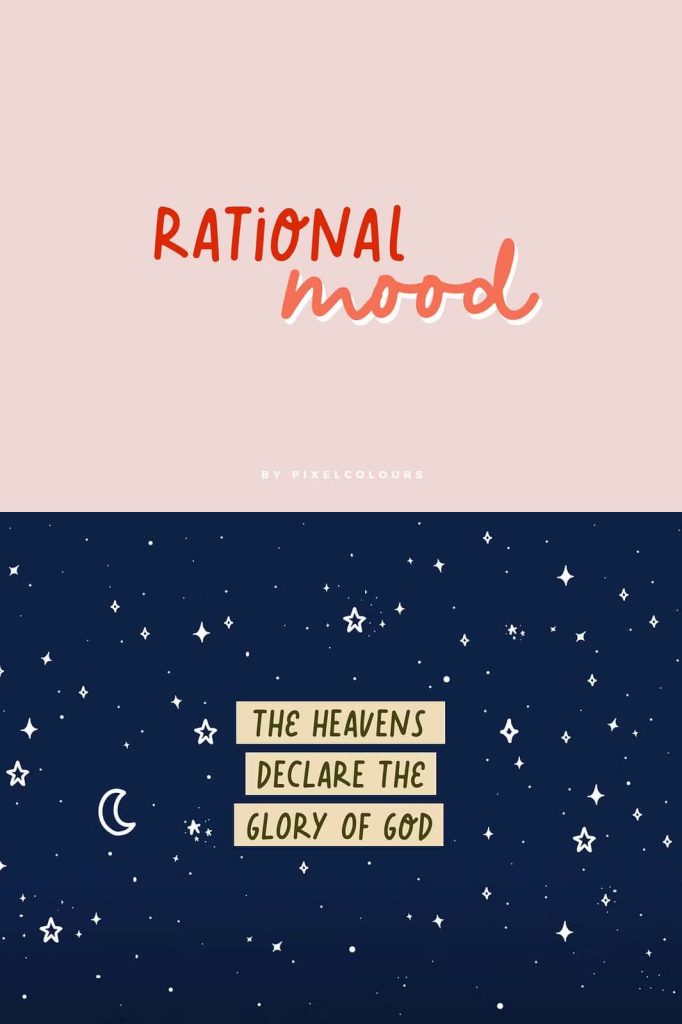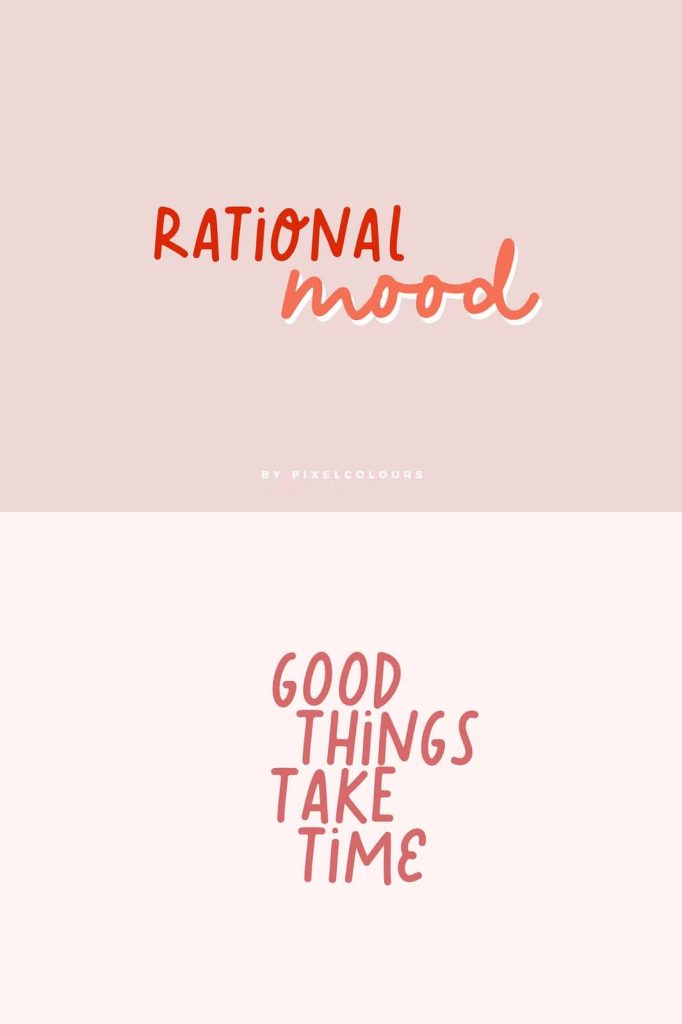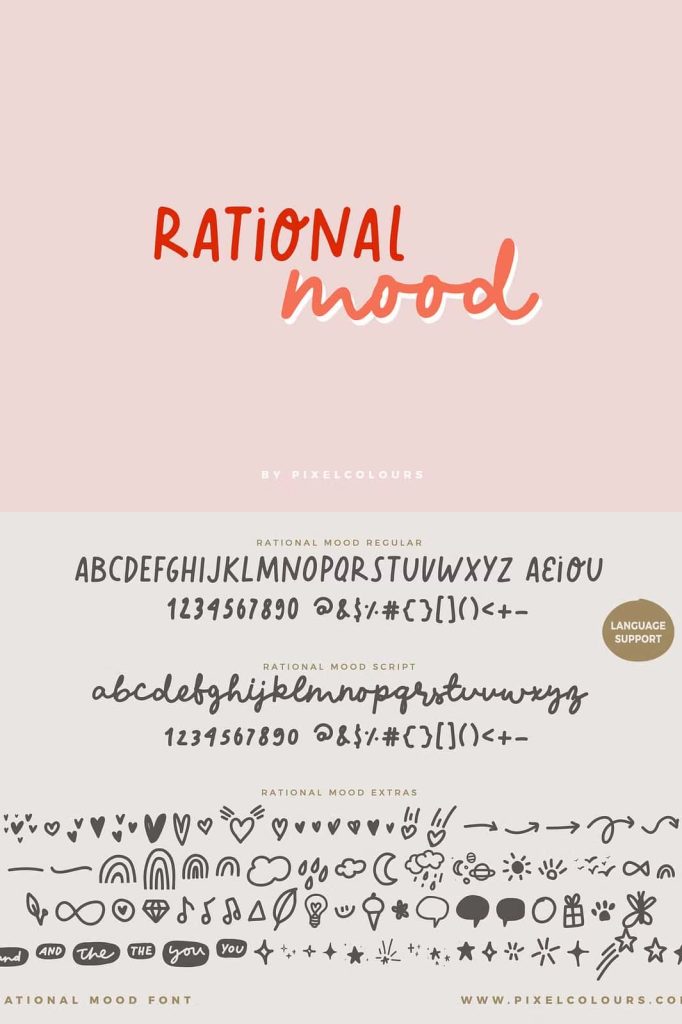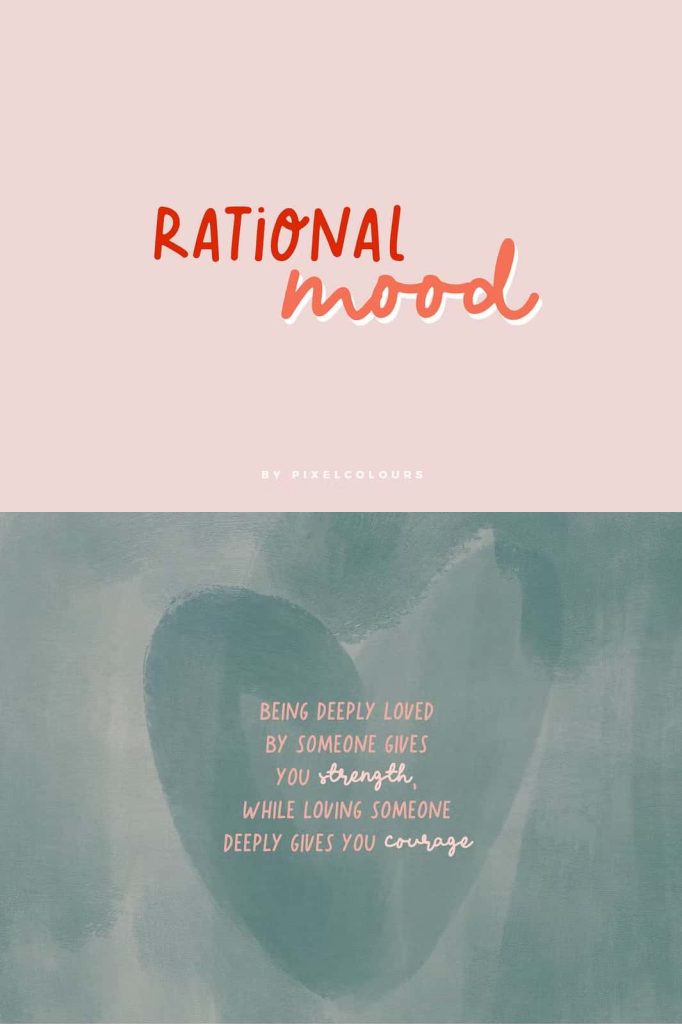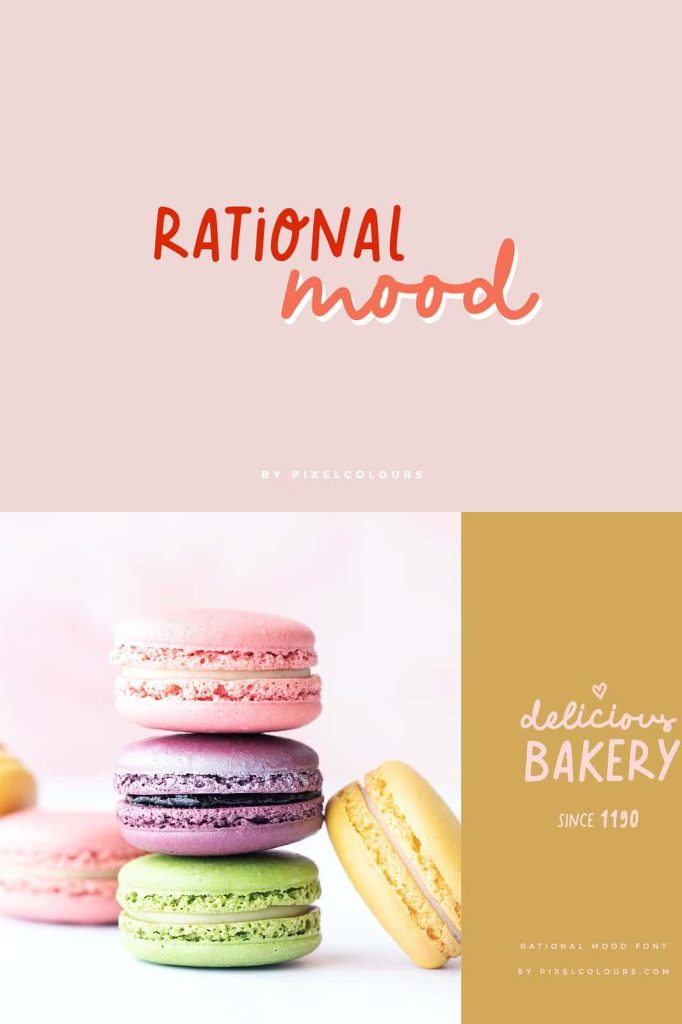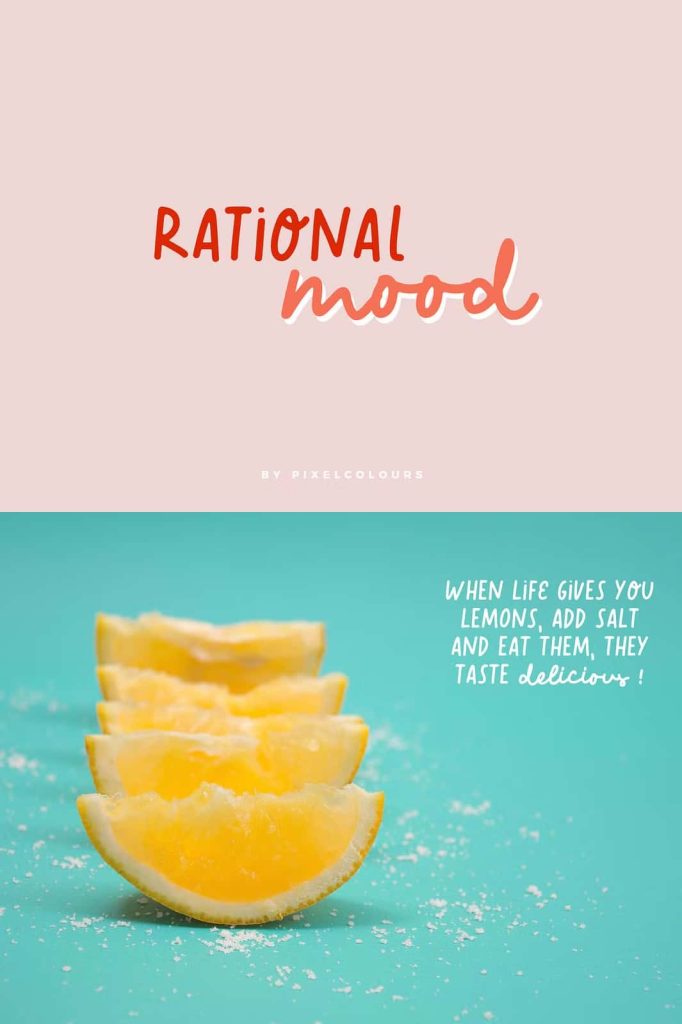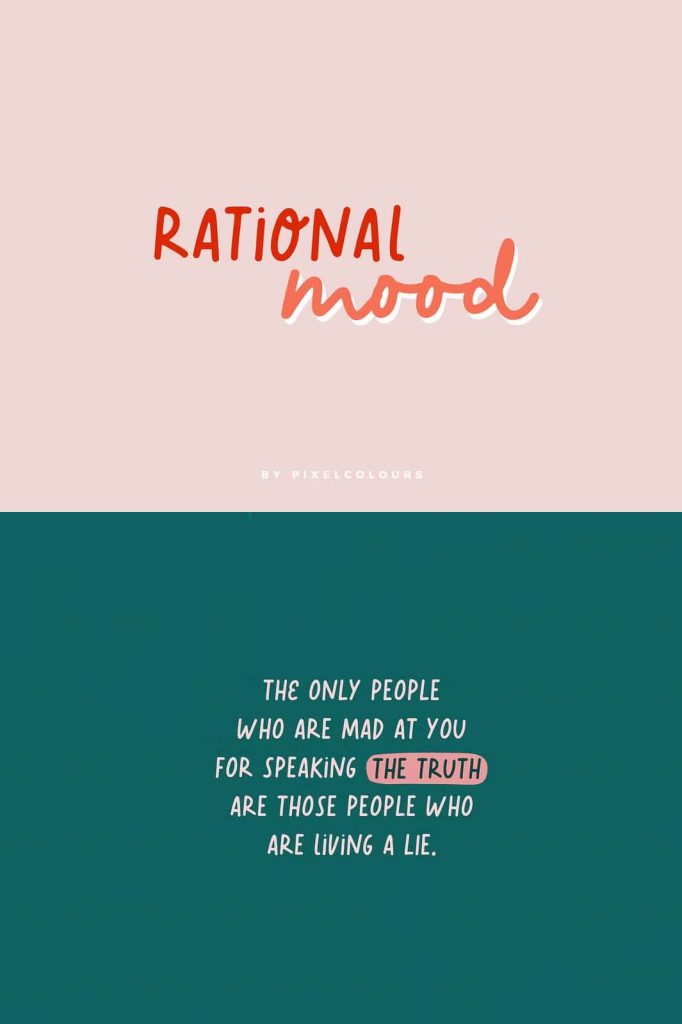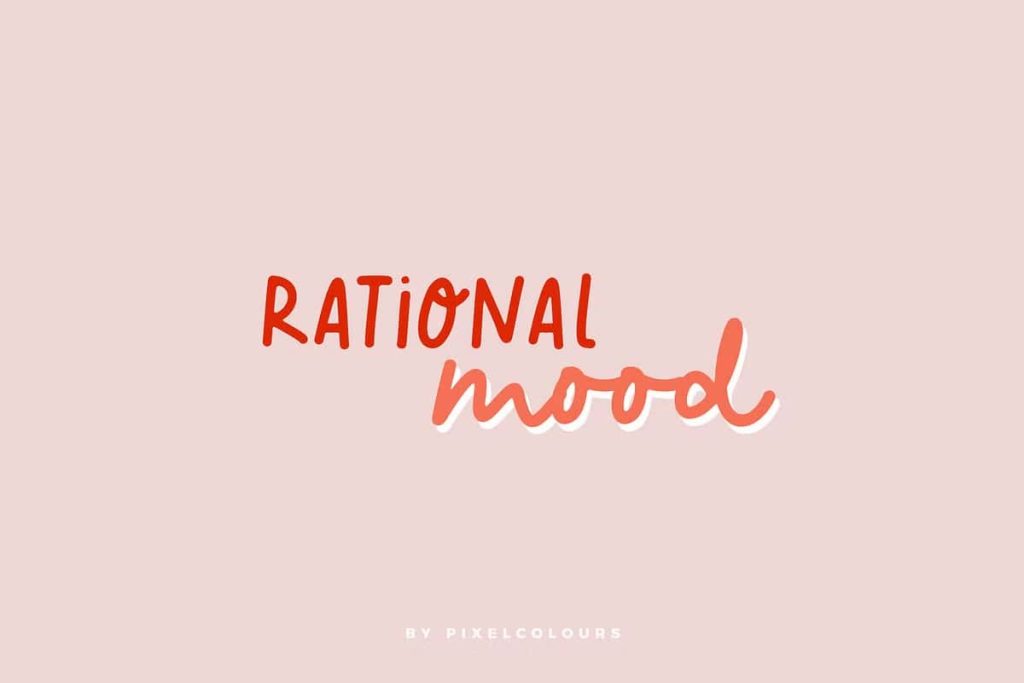
Script Font Rational Mood
Rational Mood Font – A Playful Handwriting Font Trio
Rational Mood Font is a charming handwriting font trio designed to help creators build playful, expressive, and visually engaging designs. This font set combines multiple complementary styles, including an uppercase display font, a flowing script font, and a collection of adorable illustrations that enhance your typography. Together, these elements allow designers to create unique compositions filled with personality and creativity.
The font trio focuses on delivering a natural handwritten aesthetic while maintaining excellent readability and versatility. Each font style offers its own character, allowing you to mix and match typography within a single project. When combined with the included illustrations, Rational Mood Font becomes a powerful creative toolkit for designers, content creators, and small business owners.
Whether you want to design inspiring quotes, social media graphics, or branding materials, this handwriting font trio provides everything you need to create warm and engaging visual content.
A Handwriting Font Trio Designed for Creative Flexibility
Rational Mood Font stands out because it includes three complementary elements that work seamlessly together. The uppercase font provides bold and structured lettering, while the script font introduces smooth handwritten flow. The additional illustrations allow you to decorate your designs and add visual charm without needing external graphic elements.
This combination gives designers greater creative freedom. You can build typographic layouts that feel dynamic and playful by mixing uppercase titles with script accents. The illustrations can frame text, highlight important words, or create decorative borders that enhance the overall design.
By combining typography and illustrations in one package, Rational Mood Font simplifies the creative process and allows designers to produce cohesive visual styles more efficiently.
What’s Included in the Font Trio
• Stylish uppercase display font
• Natural handwritten script font
• Collection of cute decorative illustrations
• Handwritten aesthetic with playful personality
• Perfectly paired fonts for creative typography
These elements give designers the flexibility to experiment with layouts and build unique typographic compositions that feel personal and expressive.
Create Beautiful Quotes and Inspirational Designs
One of the most popular uses for Rational Mood Font is quote design. Inspirational quotes, motivational phrases, and decorative lettering projects benefit greatly from handwritten typography. The playful uppercase letters create strong titles, while the script font adds warmth and personality to supporting text.
Designers can combine these elements to create visually balanced quote graphics. The included illustrations make it easy to decorate your text and add small artistic accents that enhance the final composition.
These decorative touches help transform simple quotes into engaging visual artwork that stands out on social media or printed products.
Perfect for Pinterest and Instagram Graphics
Social media platforms such as Pinterest and Instagram thrive on visually appealing content. Rational Mood Font helps creators design graphics that capture attention and communicate personality instantly. The handwritten style feels authentic and relatable, which makes it ideal for social media storytelling and content marketing.
Content creators can use the font trio to design quote posts, inspirational graphics, lifestyle content, and creative announcements. The decorative illustrations allow you to add playful visual elements that make your posts more engaging and memorable.
Because the fonts pair naturally with each other, you can easily build consistent visual branding across your social media profiles.
Great for These Creative Projects
• Pinterest quote graphics
• Instagram posts and stories
• Creative social media content
• Inspirational typography artwork
• Greeting cards and stationery
• Personal branding materials
• Printable wall art
• Creative digital products
Add Cute Illustrations to Enhance Your Designs
One of the standout features of Rational Mood Font is the inclusion of extra illustrations. These small graphics help designers create playful compositions without needing additional artwork. The illustrations complement the handwriting style perfectly, allowing you to decorate text naturally.
You can place these decorative elements around quotes, use them as dividers, or integrate them into your typography layout. These visual accents add personality and charm while keeping the design cohesive.
The ability to combine typography with matching illustrations makes this font trio especially useful for designers who enjoy creating handcrafted-style graphics.
A Versatile Font Set for Designers and Creators
Rational Mood Font offers exceptional versatility for both digital and print design. Designers can use the font trio for branding, packaging, greeting cards, or decorative artwork. Small businesses and creative entrepreneurs will also find it useful for product labels, promotional graphics, and marketing materials.
The friendly handwriting style helps communicate authenticity and warmth. Many modern brands prefer this style because it feels personal and approachable compared to rigid typography.
Because the font set includes multiple styles and illustrations, it allows designers to maintain creative variety while still preserving a consistent visual identity.
Bring Personality to Your Typography
Rational Mood Font gives designers the tools to create playful, engaging, and expressive typography. The combination of uppercase lettering, handwritten script, and decorative illustrations provides endless possibilities for creative exploration.
If you want to design charming quote graphics, stylish social media posts, or decorative typography artwork, this handwriting font trio offers the perfect balance of creativity and functionality. With Rational Mood Font, every project can feel more personal, imaginative, and visually delightful.